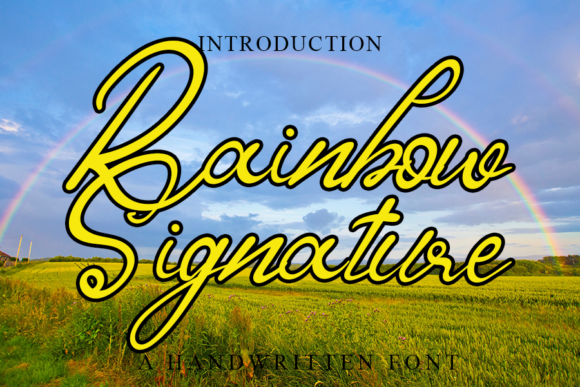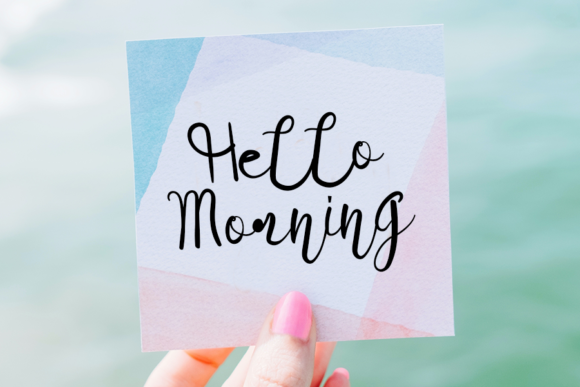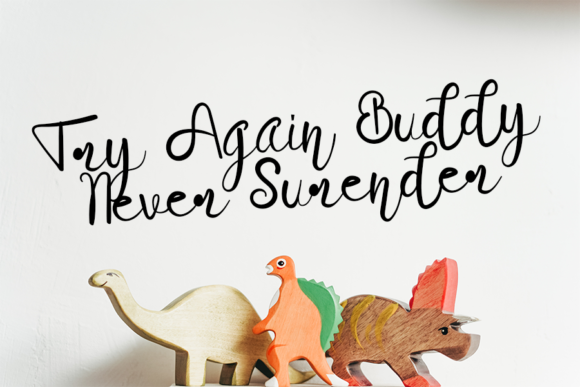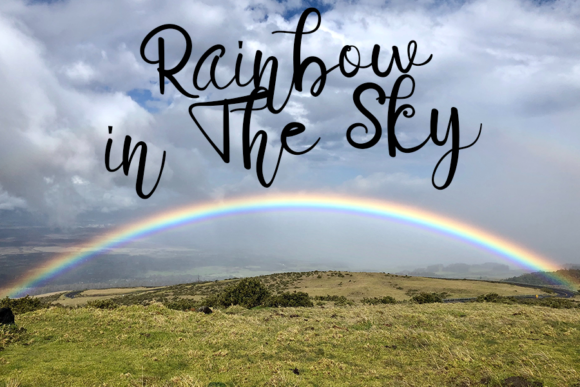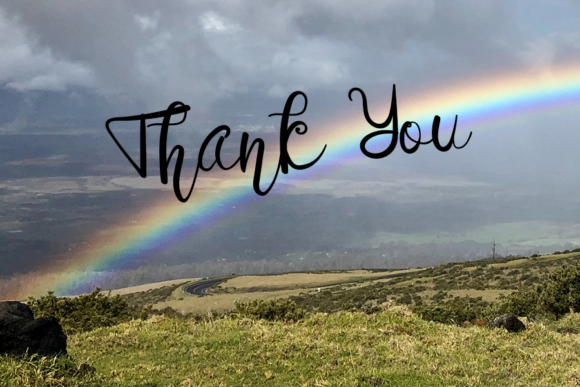
Rainbow Signature Font
About Rainbow Signature Font
Rainbow Signature is a lovely script font featuring charming, playful characters that seem to dance along the baseline. Add this font to your most creative ideas, and notice how it makes them stand out!